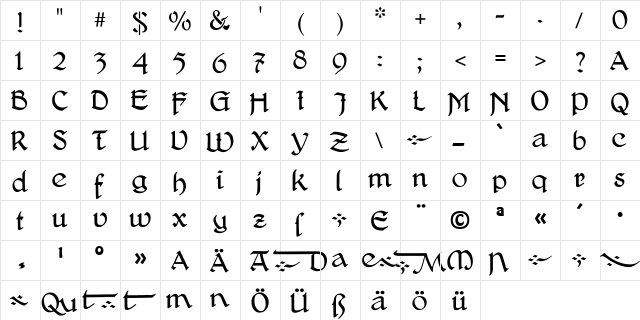
DelitschAntiqua Regular
Design Context for DelitschAntiqua Typeface
DelitschAntiqua takes a measured approach to typography — its balanced proportions and neutral character make it a reliable workhorse for both digital and print work.